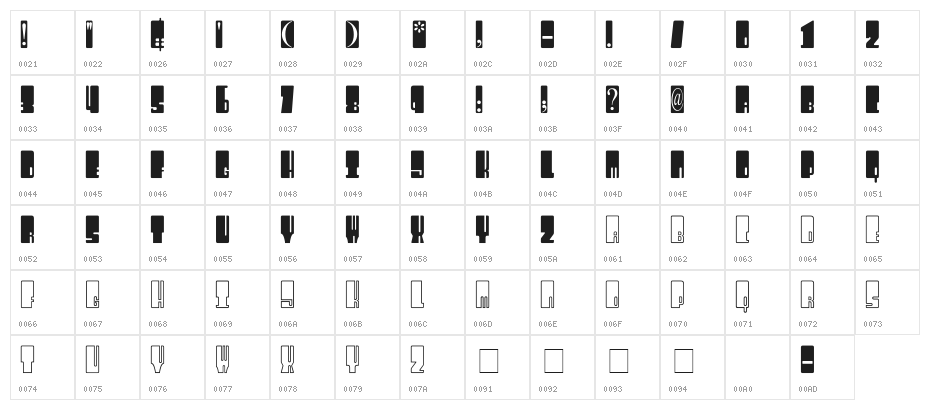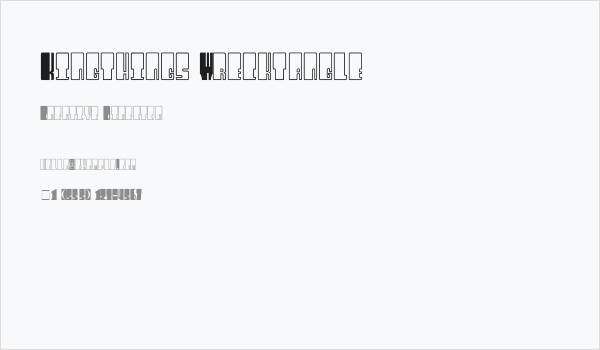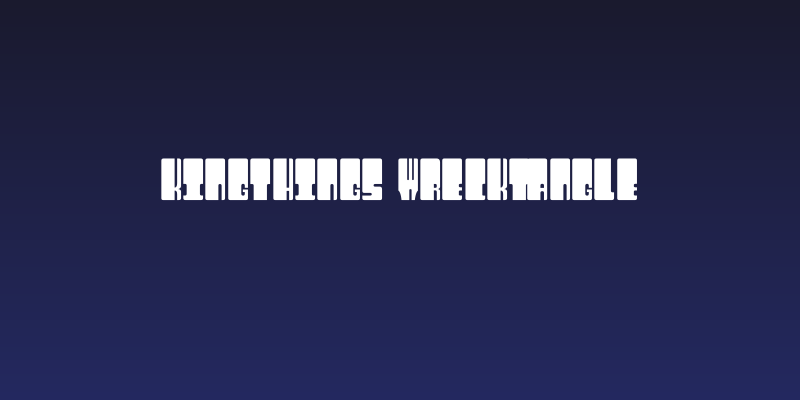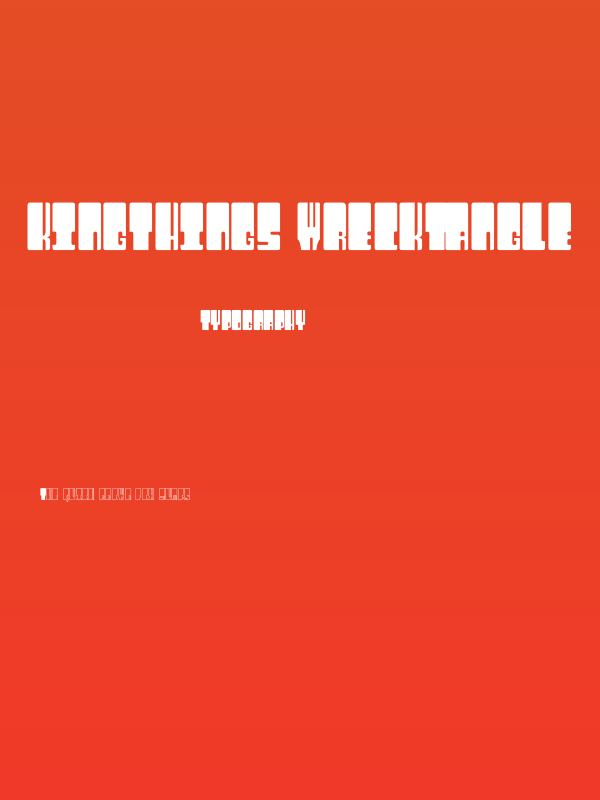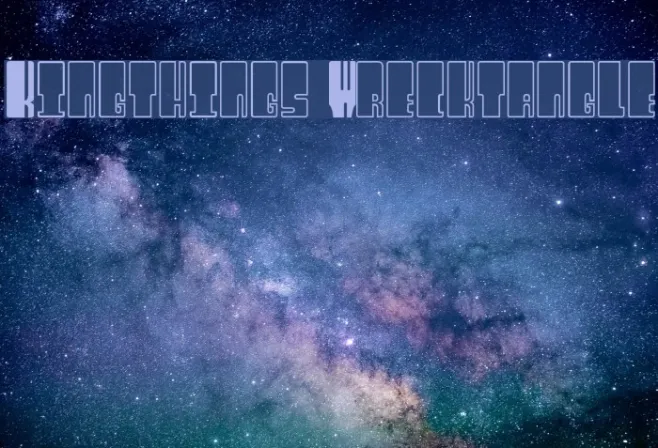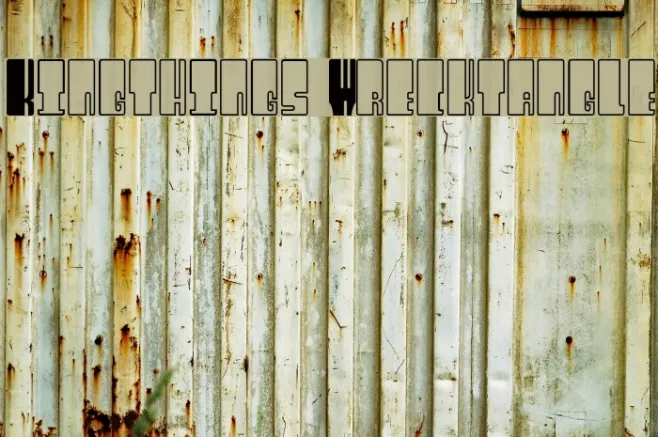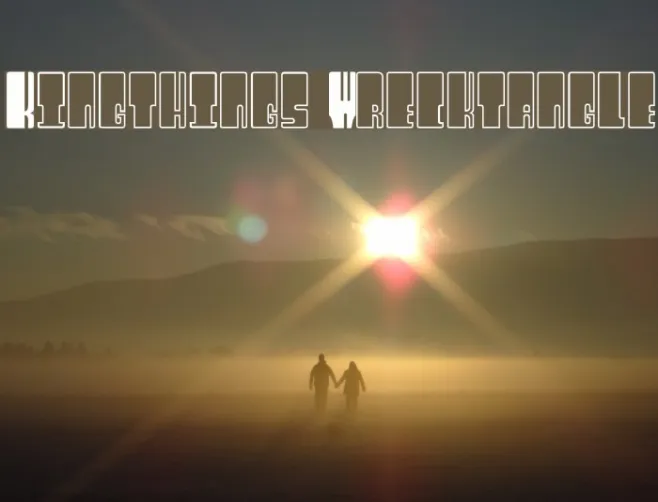
Kingthings Wrecktangle Font
Kingthings Wrecktangle Description
This font features a bold and blocky design with a playful and quirky aesthetic. The uppercase letters are solid and filled, while the lowercase letters have a hollow, outlined style. The numbers are similarly bold and chunky, making them stand out. Special characters are creatively designed, adding a unique touch to the overall appearance. The font's geometric shapes and thick lines give it a strong presence, making it ideal for attention-grabbing designs. Its distinctive style is both modern and slightly retro, offering versatility for various creative projects.
| Overall Style | Modern, Retro |
| Proposed Projects | Ideal for posters, logos, and headlines where a bold and distinctive look is desired. Suitable for creative projects that require a playful and eye-catching design. |